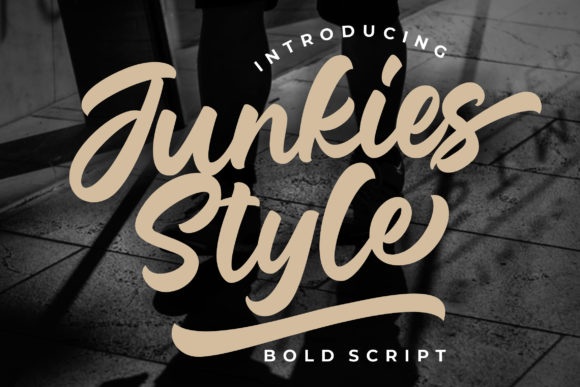
Choosing Junkies Style for Editorial Design
The layout for the spring issue was nearly complete. The photography was stunning, the body text flowed cleanly in a reliable serif, and the feature articles were polished. Yet, the cover still felt a little rigid, a little corporate. The headline needed a touch of personality, a whisper of human connection to mirror the intimate, personal stories inside. That’s when I opened the font folder and found Junkies Style.
Junkies Style for Magazine Headers and Feature Titles
Junkies Style is a handwritten font that possesses an authentic, organic rhythm. Its characters aren’t perfectly uniform; they carry a slight, intentional irregularity that feels like thoughtful penmanship rather than chaotic scribble. This quality is precisely what makes it such a compelling choice for display text in editorial work. When I applied it to the magazine’s cover headline, the entire composition softened. The title gained warmth and approachability without sacrificing clarity or authority. For feature titles within the layout, Junkies Style created a distinct visual entry point, signaling to the reader that this section was special, personal, and worth their time.
How Junkies Style Enhances Content Readability
A common concern with script fonts is readability, especially at smaller sizes or in digital formats. In testing Junkies Style across various editorial applications, its legibility held up remarkably well. The letterforms are well-spaced and distinct, avoiding the tangled strokes that can plague more ornate scripts. In a recent project—a downloadable coaching workbook—I used Junkies Style for all chapter titles and section headers. Even when exported as a PDF and viewed on tablets, the headings remained perfectly clear, establishing a strong visual hierarchy that guided the reader through the material effortlessly. This Script Handwritten font proves that personality and function can coexist.
Using Junkies Style for Digital Magazines and Newsletter Graphics
The transition to digital publishing demands fonts that perform on screen. Junkies Style has become a staple in my toolkit for digital magazine layouts and weekly newsletter graphics. Its unique character brings a crafted, human touch to the often sterile environment of email headers and social media announcement posts. For a lifestyle blog’s redesign, employing Junkies Style exclusively for the blog header and featured post titles instantly refreshed the site’s identity. It conveyed a mood of curated, personal insight, which aligned perfectly with the blog’s content. This font doesn’t shout; it invites.
When considering font pairing for a cohesive editorial identity, Junkies Style acts as a superb display partner. It works harmoniously with a clean, neutral sans-serif for body copy, captions, and metadata. For a more traditional feel, a classic serif font for long-form articles provides a beautiful contrast. This pairing strategy ensures that while Junkies Style provides mood and brand recognition at the top of the content structure, the reading experience below remains comfortable and uninterrupted.
Junkies Style in Printable Planners and Recipe Ebooks
Beyond digital screens, Junkies Style excels in print-adjacent design. Its authentic hand-drawn aesthetic is ideal for projects that aim to feel tactile and personal, even when distributed digitally. Crafting a recipe ebook, I used this font for the recipe titles and ingredient section headers. It evoked the feeling of a handwritten family cookbook, adding immense value to the product’s perceived care and quality. Similarly, for a printable wedding planner, Junkies Style adorned the cover and key divider pages, elevating a functional PDF into a beautiful, keepsake-worthy document. These uses tap directly into the font’s described versatility for crafting and digital designing.
Where Junkies Style Supports Publication Identity
A publication’s identity is built over time through consistent visual cues. A distinctive font choice for headlines is one of the most powerful cues. Adopting Junkies Style as a brand’s primary display font for article titles, podcast cover art, or course module graphics creates a recognizable and trustworthy aesthetic. It signals an editorial voice that is considered, creative, and human-first. For independent content brands and creators, this can be a significant differentiator in a crowded space. The font becomes part of the brand’s vocabulary.
It’s important, however, to understand the boundaries of this font. Junkies Style is a display font. Its strength lies in headlines, pull quotes, logos, introductory sentences, and decorative accents. It is not suitable for body copy, dense paragraphs, small captions, or formal report text. Using it for extended reading would compromise readability and strain the viewer. This is not a limitation, but a clarification of role. Knowing how to deploy a tool is part of expert design.
In the end, the spring issue cover was finalized with Junkies Style leading the visual narrative. The response was quietly positive—readers remarked on the publication feeling more “connected.” That’s the true test of a font in editorial design: does it enhance the communication, support the structure, and deepen the engagement? For projects seeking warmth, authenticity, and a refined casual mood, this Script Handwritten font offers a robust and versatile solution. It’s a premium font that serves not just as decoration, but as a thoughtful component of your publication’s identity and voice.